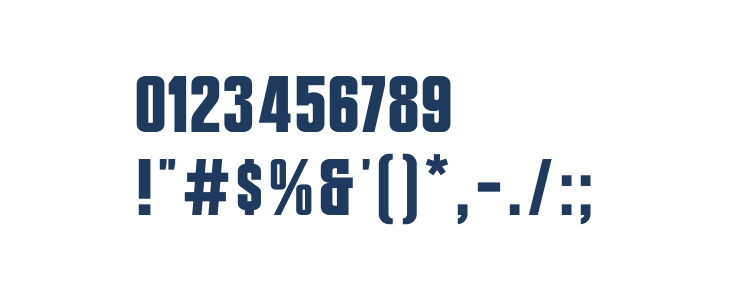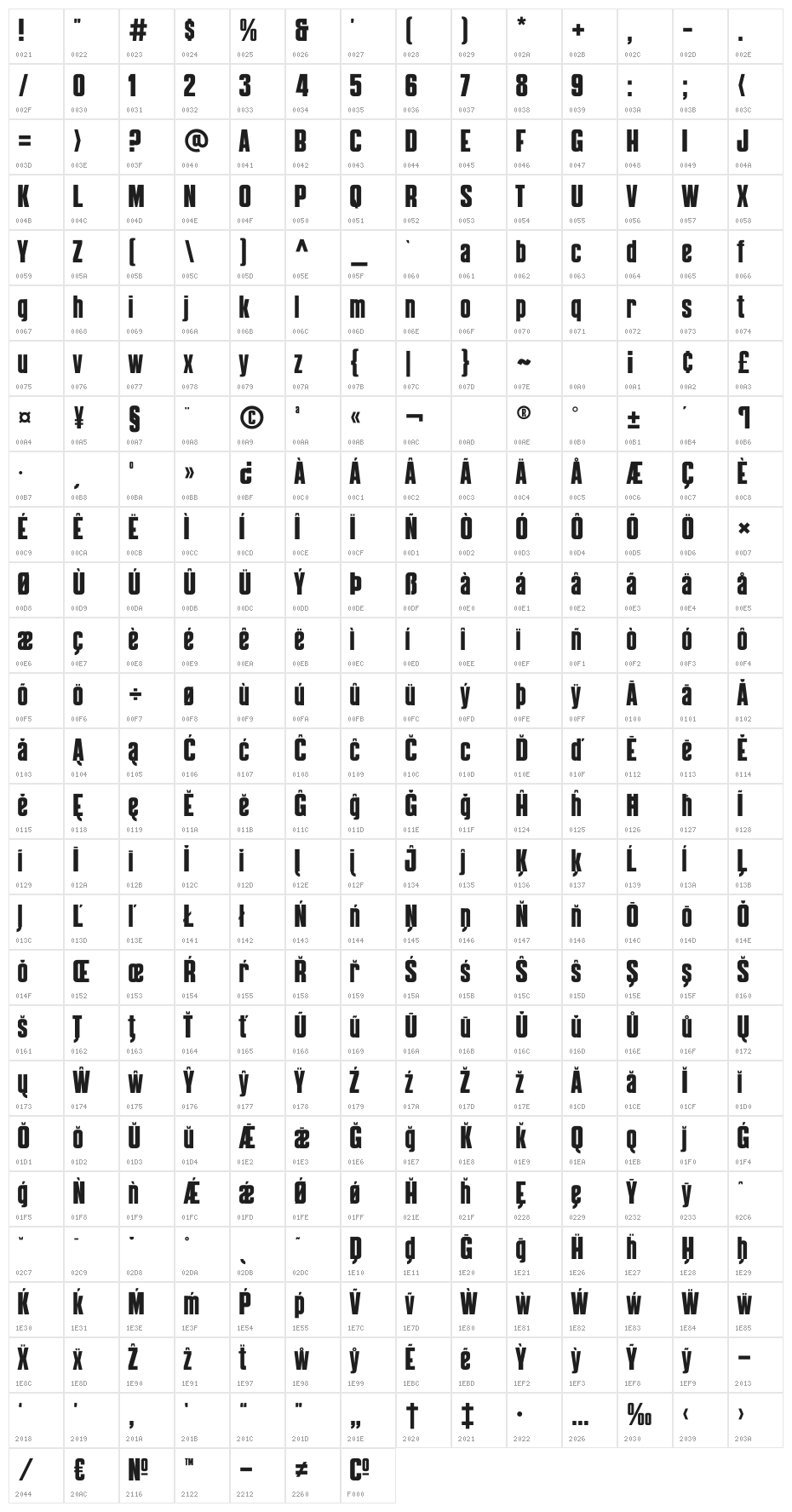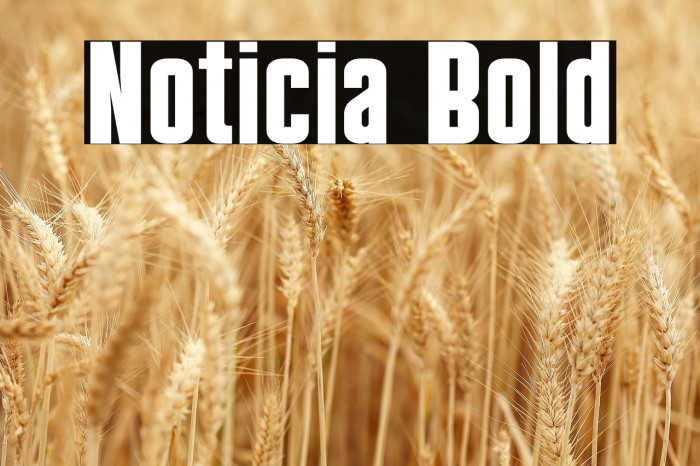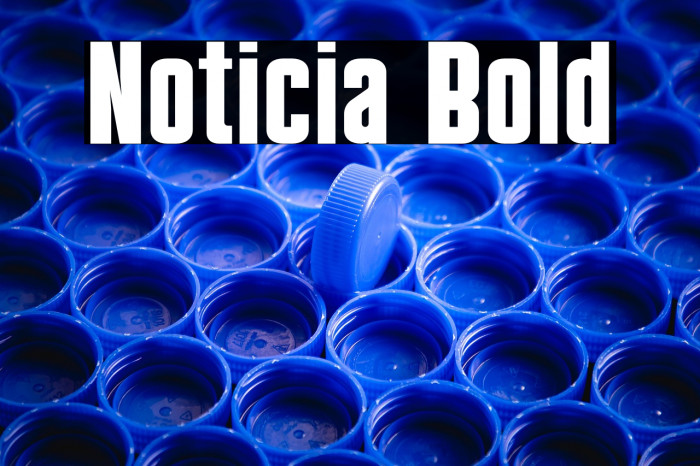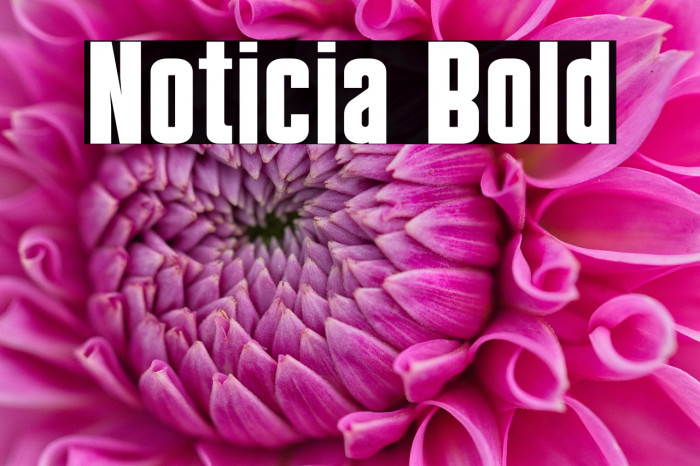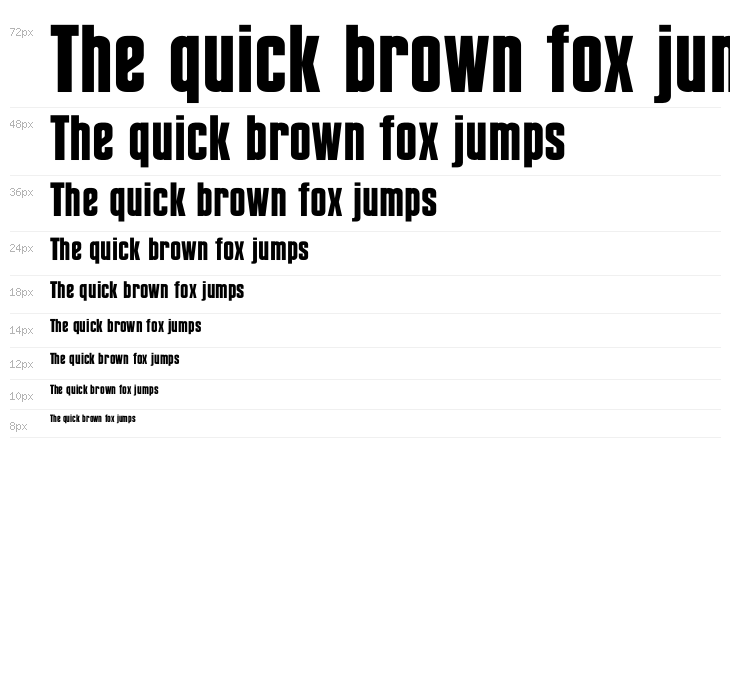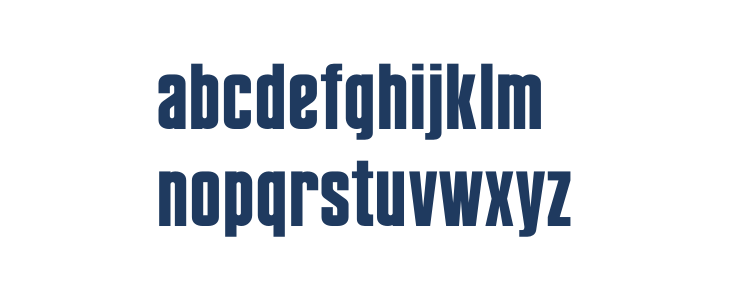
Noticia Bold Font
Noticia Bold Description
This font features a bold and impactful design, characterized by thick, uniform strokes that convey strength and authority. Its sans-serif style provides a clean and modern appearance, making it highly legible and versatile for various applications. The uppercase and lowercase letters maintain consistent proportions, while the numerals and special characters are designed with clarity in mind. The overall design is straightforward, with minimal decorative elements, focusing on functionality and readability.
Proposed ProjectsIdeal for headlines, posters, branding, and advertising materials where a strong visual impact is needed.